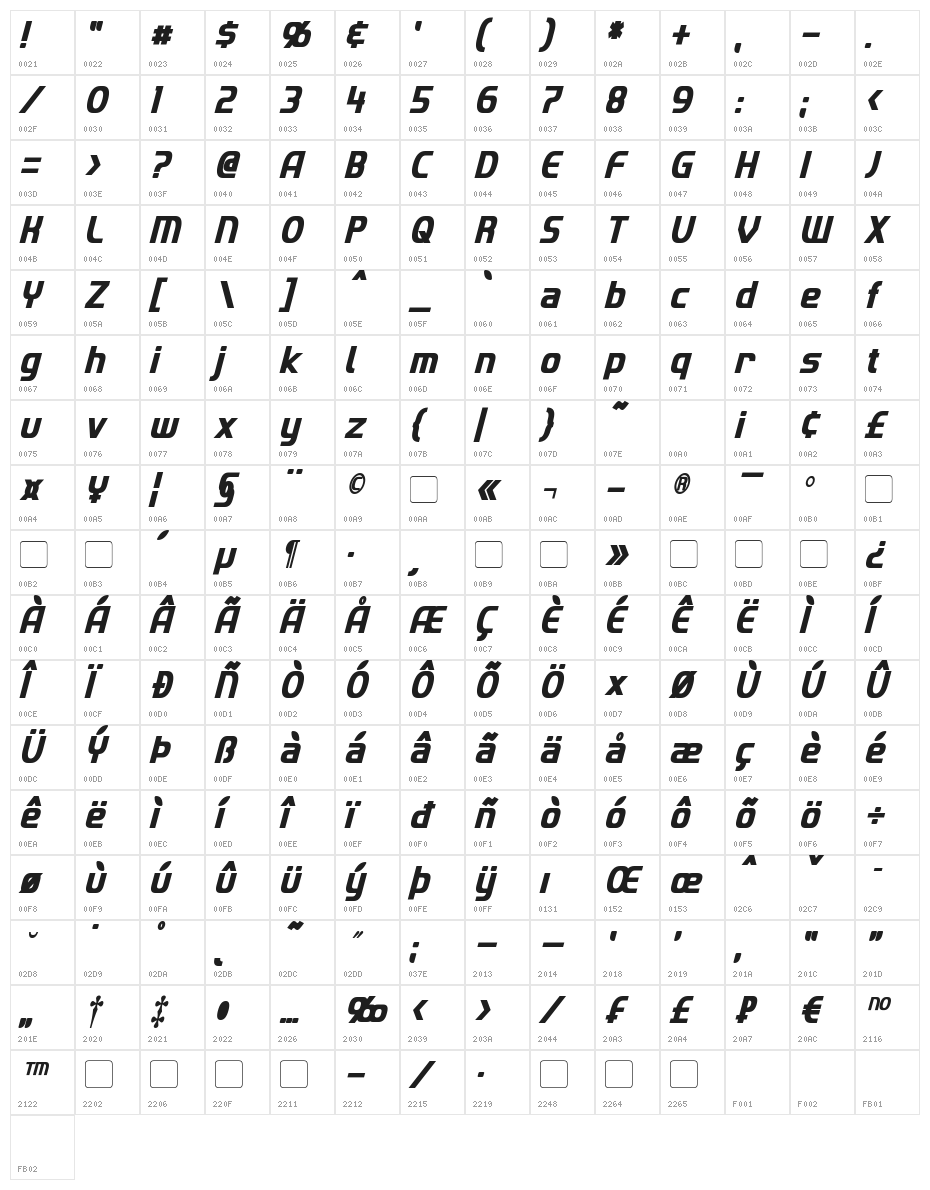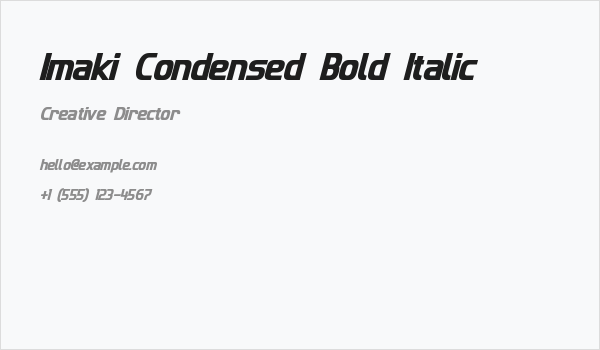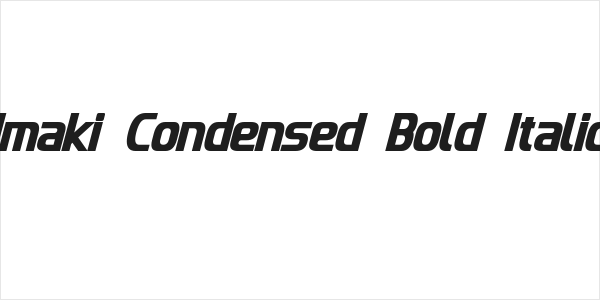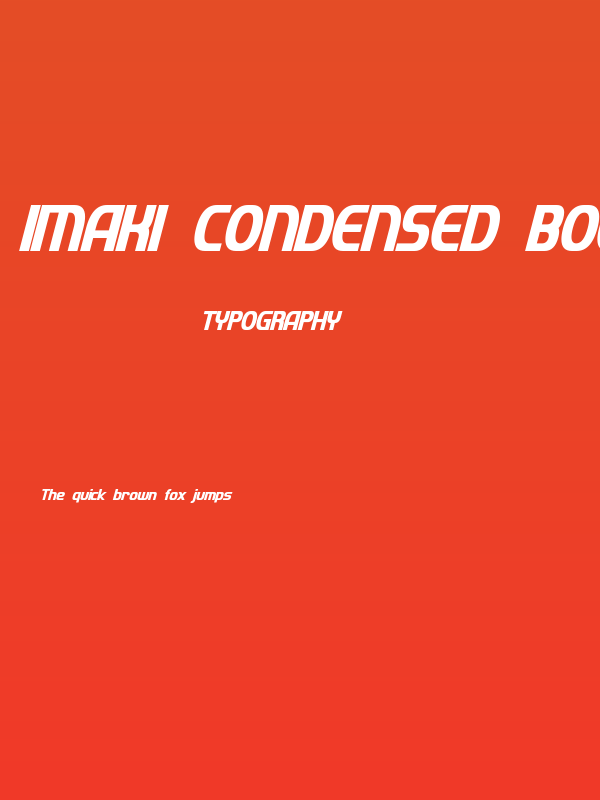
Imaki Condensed Bold Italic Font
Imaki Condensed Bold Italic Description
This font features a bold and italicized style with a condensed width, giving it a dynamic and modern appearance. The characters are slanted, enhancing the sense of movement and energy. The strokes are thick and consistent, providing a strong visual impact. The uppercase and lowercase letters maintain a uniform height, contributing to a cohesive look. The numerals are clear and bold, ensuring readability. Special characters are designed with the same boldness and slant, integrating seamlessly with the alphabetic characters. Overall, this font exudes a contemporary and assertive vibe, suitable for making a strong statement.
| Proposed Projects | Ideal for sports branding, dynamic posters, modern advertisements, and bold headlines. |